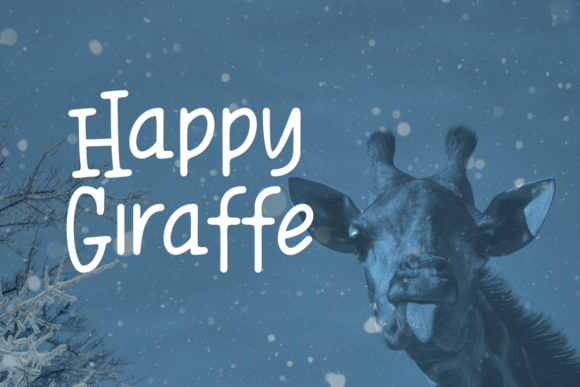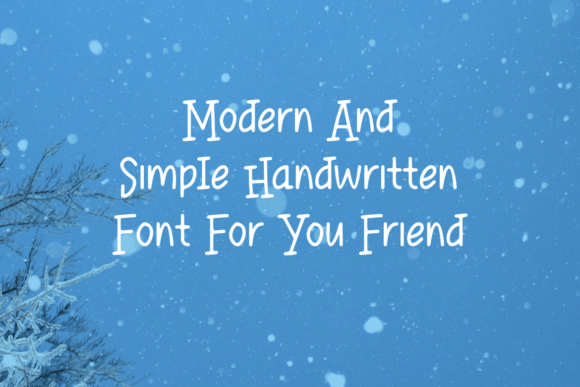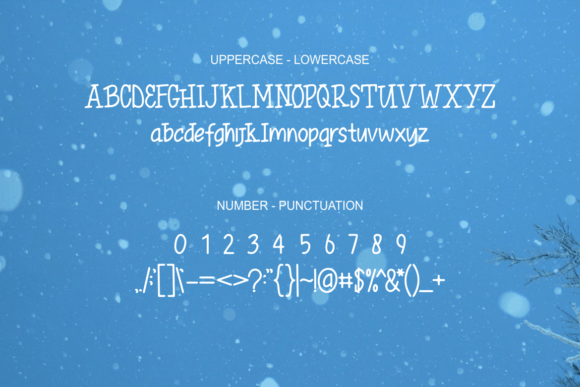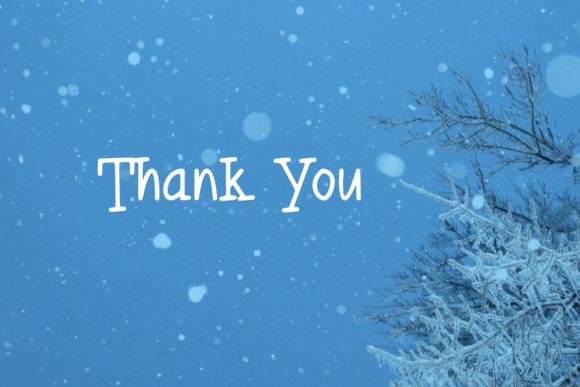
Introduction to Snow Jhengky Font
Snow Jhengky – Font Modern Font is a bold and authentic display font.
The font is suitable for any branding project like logo, t-shirt printing, esport, and many more outstanding in a wide range of contexts.
Key Features of Snow Jhengky Font
Why Choose Snow Jhengky Font?